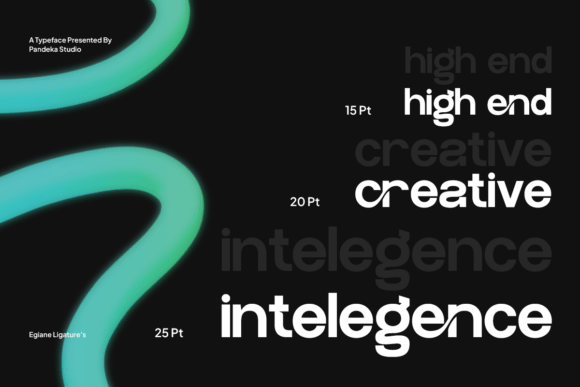
Introducing Egiane Font: The Ultimate Modern Sans Serif Typeface for Futuristic Designs
In the realm of digital design, a font can make or break the visual identity of a brand. With the ever-evolving landscape of digital innovation, it’s essential to have a typeface that not only keeps up but also stands out. This is where Egiane Font comes into play. Inspired by futuristic aesthetics and digital innovation, Egiane is a sleek and modern sans serif typeface designed to deliver a contemporary and high-tech visual style suitable for modern brands and creative industries.
Design Philosophy and Features
Egiane’s design philosophy revolves around clarity and innovation. Its clean geometric construction and minimalistic form ensure that it perfectly fits branding projects, tech startups, UI/UX interfaces, digital posters, and creative corporate identities. The font’s distinctive character shapes make it ideal for both display and headline use, ensuring your design stands out with a bold and professional appeal.
One of the standout features of Egiane is its versatility. The font comes in one regular style and includes 17+ ligatures, providing flexible typographic combinations to enhance visual creativity. Whether you’re designing a logo, a digital poster, or a website, Egiane offers the flexibility to create unique and captivating text.
Applications of Egiane Font
Egiane’s modern and sleek design makes it suitable for a variety of applications, including:
- Branding Projects: Create a lasting impression with Egiane’s bold and professional appeal.
- Tech Startups: Perfect for startups looking to establish a modern and innovative visual identity.
- UI/UX Interfaces: Enhance user experience with a clean and readable font.
- Digital Posters: Grab attention with Egiane’s distinctive character shapes and ligatures.
- Creative Corporate Identities: Elevate your brand’s visual identity with a modern sans serif typeface.
Why Choose Egiane Font?
In a world where digital presence is crucial, having a font that embodies modernity and innovation can set you apart. Egiane Font offers:
- Contemporary Visual Style: Deliver a high-tech look that resonates with modern audiences.
- Versatility: Use Egiane across various platforms and applications.
- Readability: Ensure clear communication with a clean and minimalistic design.
- Professional Appeal: Elevate your designs with a bold and professional font.
Egiane Font is a powerful tool for designers and brands looking to make a statement in the digital world. Its sleek and modern design, combined with its versatility and readability, makes it an ideal choice for a wide range of applications. Whether you’re a startup looking to establish your brand identity or a creative professional seeking a font that embodies innovation, Egiane is the perfect solution.